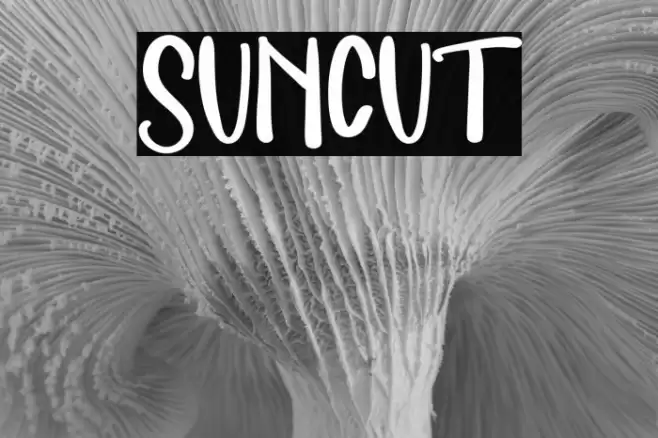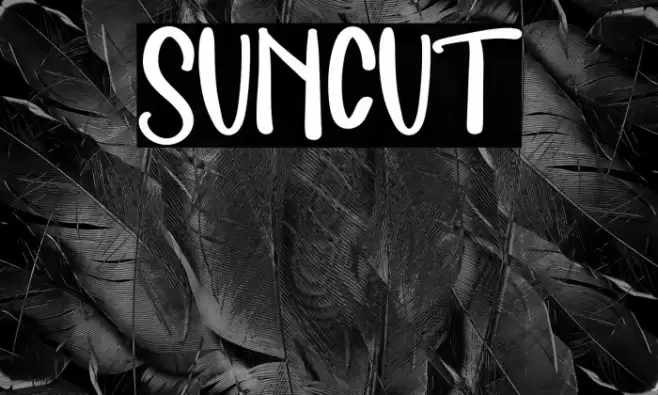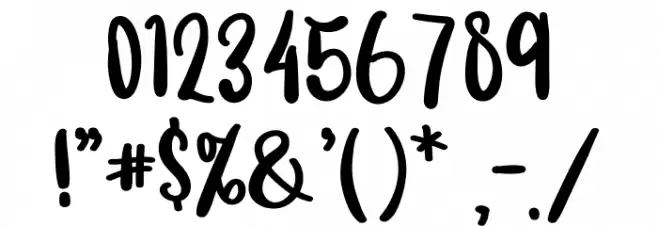
SUNCUT Font
SUNCUT Description
This font features a playful and casual handwritten style, characterized by its bold and rounded letterforms. The uppercase and lowercase letters maintain a consistent flow, with slightly exaggerated curves and a friendly appearance. The numbers and special characters complement the alphabet with a similar whimsical touch. The strokes are uniformly thick, providing a cohesive look across all characters. This font's informal and approachable style makes it suitable for projects that require a personal or creative touch.
A playful, bold handwritten font with rounded, friendly letterforms from Regular fonts.
- Proposed Projects: Ideal for greeting cards, children's books, playful branding, and social media graphics.
- Overall Style: Casual, Playful